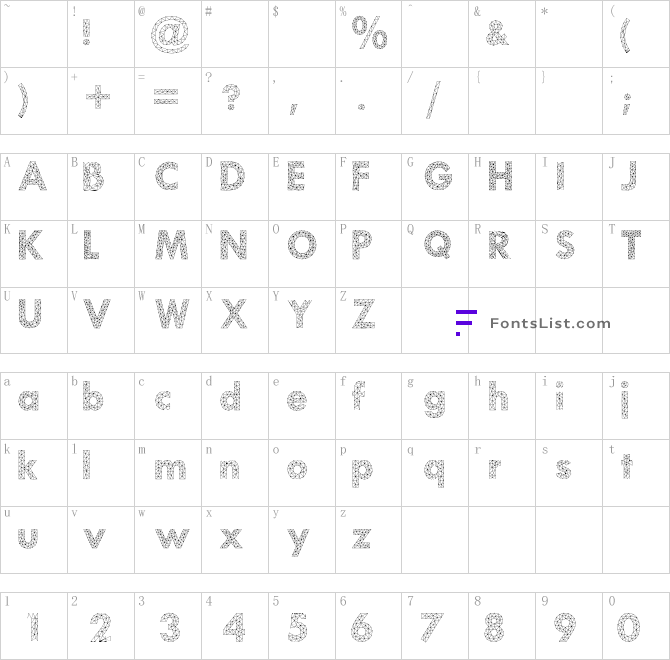
- Font Name:Aroly
Aroly.ttf is a very beautiful artistic font, Aroly.ttf is widely used in the design and printing of various books and pictures,Aroly.ttf has a strong visual impact,Aroly.ttf is a commonly used font in newspapers, magazines and books, and is used in posters, e-commerce Poster design, store design, logo design, font design and other fields.Aroly.